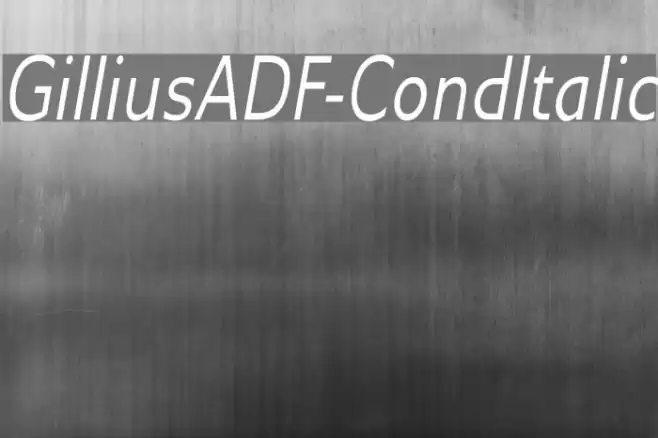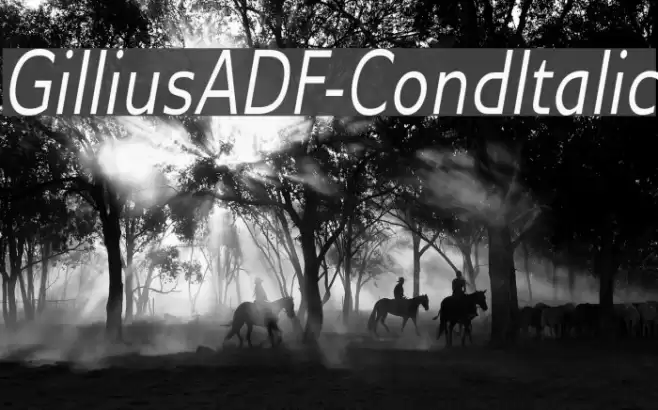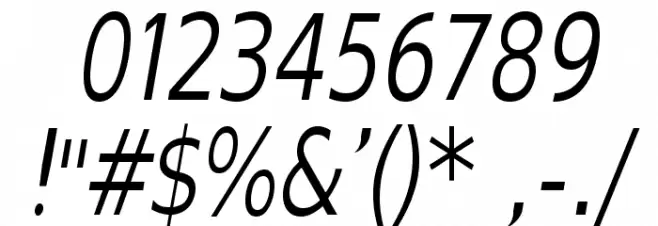
GilliusADF-CondItalic Font
GilliusADF-CondItalic Description
This font features a sleek, modern design with a condensed and italicized style. The characters are slightly slanted, giving a dynamic and forward-moving appearance. The uppercase and lowercase letters maintain a consistent height ratio, providing a harmonious look. The numerals are clear and legible, matching the overall aesthetic. Special characters are well-defined, ensuring versatility in various applications. The font's clean lines and minimalistic approach make it suitable for contemporary designs.
A modern, condensed italic font with clean lines and a dynamic style from Uncategorized fonts.
- Proposed Projects: Ideal for branding, advertising, and editorial design projects where a modern and sleek appearance is desired.
- Use Case: Headlines, Logos, Editorial design